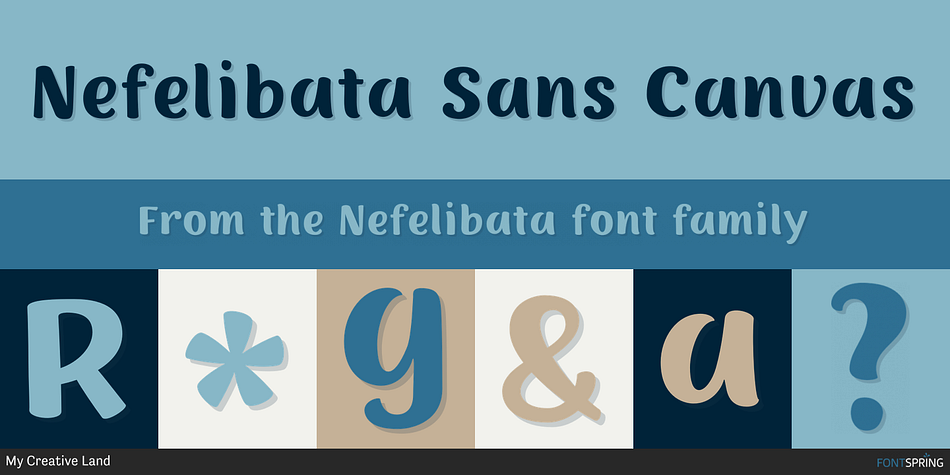
Nefelibata Sans Canvas
Designed by Elena Genova, Nefelibata is a multiple classification font family. This typeface has nine styles and was published by My Creative Land.
A new handwritten font collection made by My Creative Land especially for all you dreamers and cloud walkers out there.
A new handwritten font collection made by My Creative Land especially for all you dreamers and cloud walkers out there. The collection has everything you might need for your contemporary design project. All of the 9 handwritten fonts and design element can be mixed and matched to tell your story!
Brush fonts - scripts and sans serif - come in two styles: clean and canvas - both of them have nice clean edges and can be used in any sizes.
Style Sans Canvas
Foundry My Creative Land
Styles Brush Display, Display Sans
Designer Elena Genova